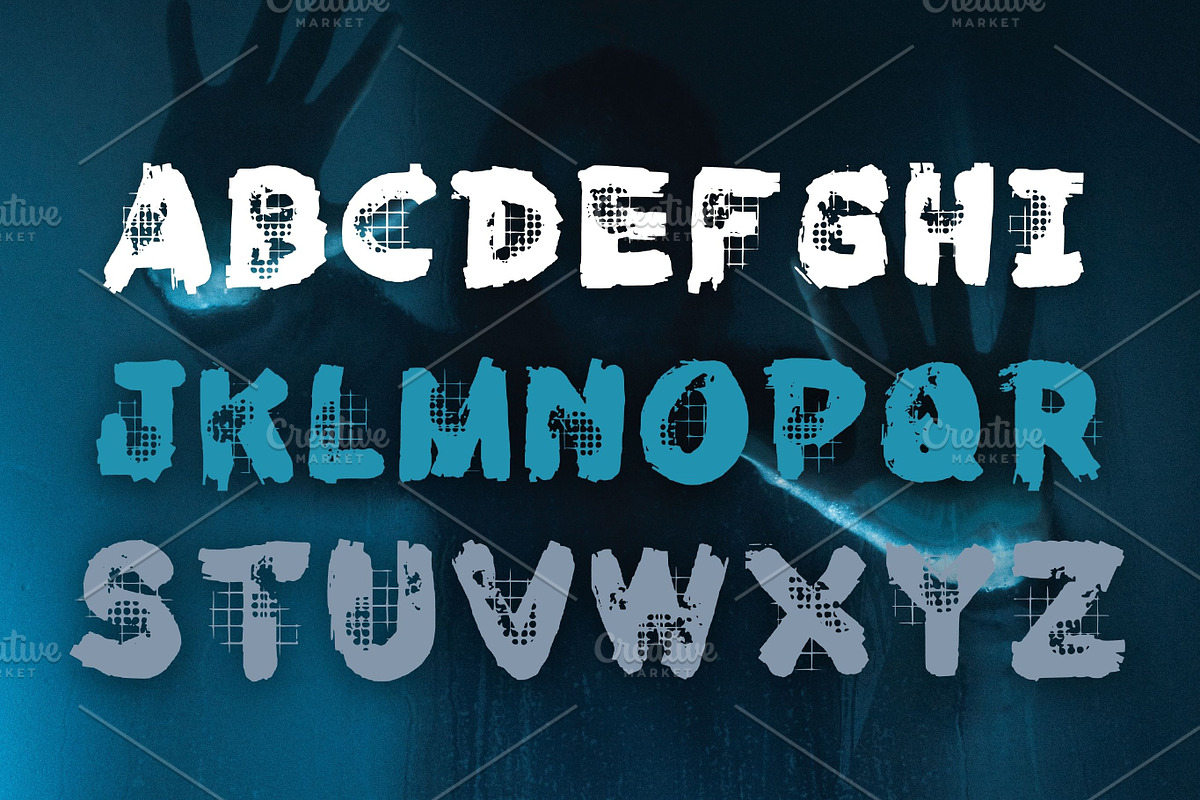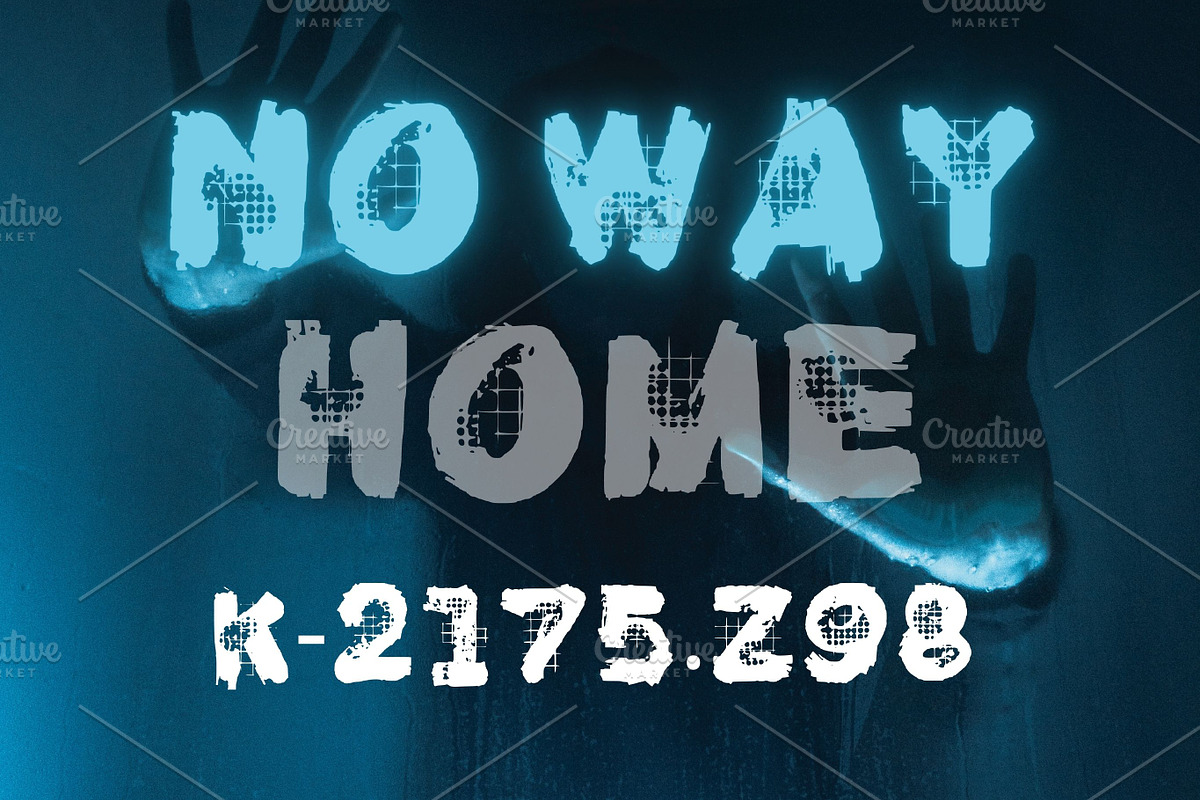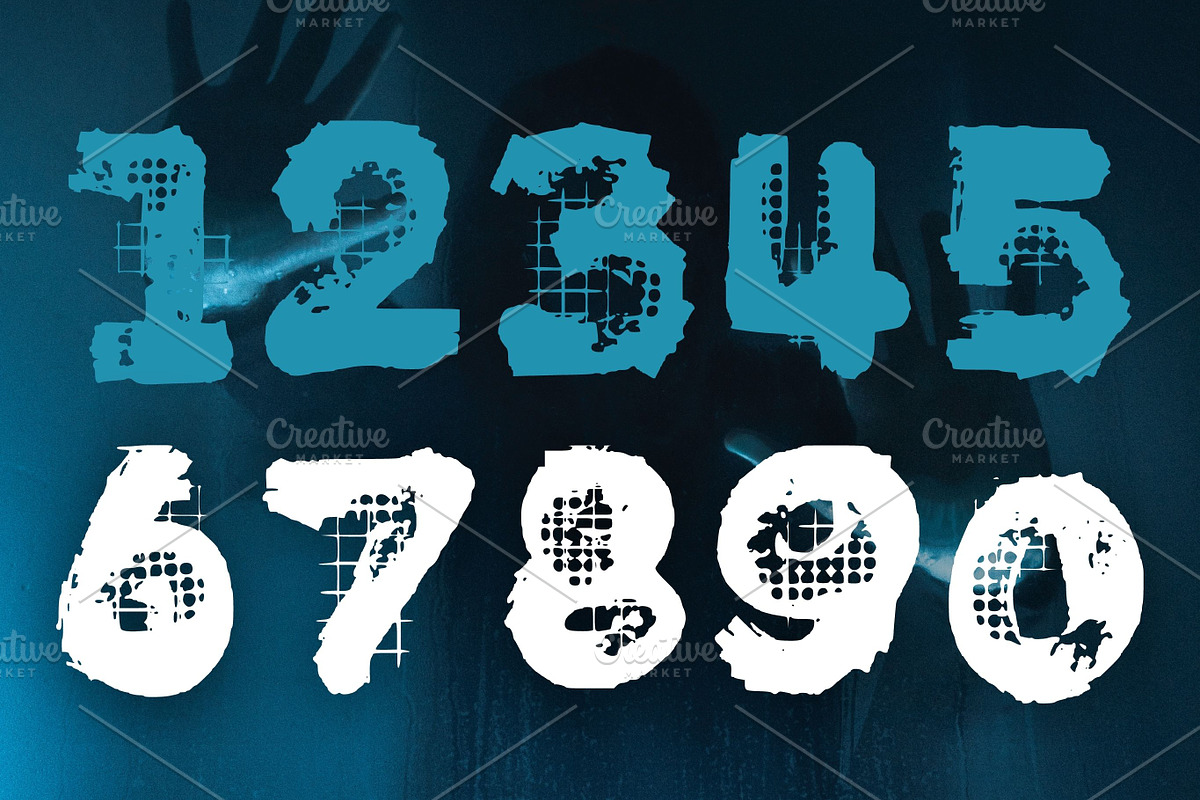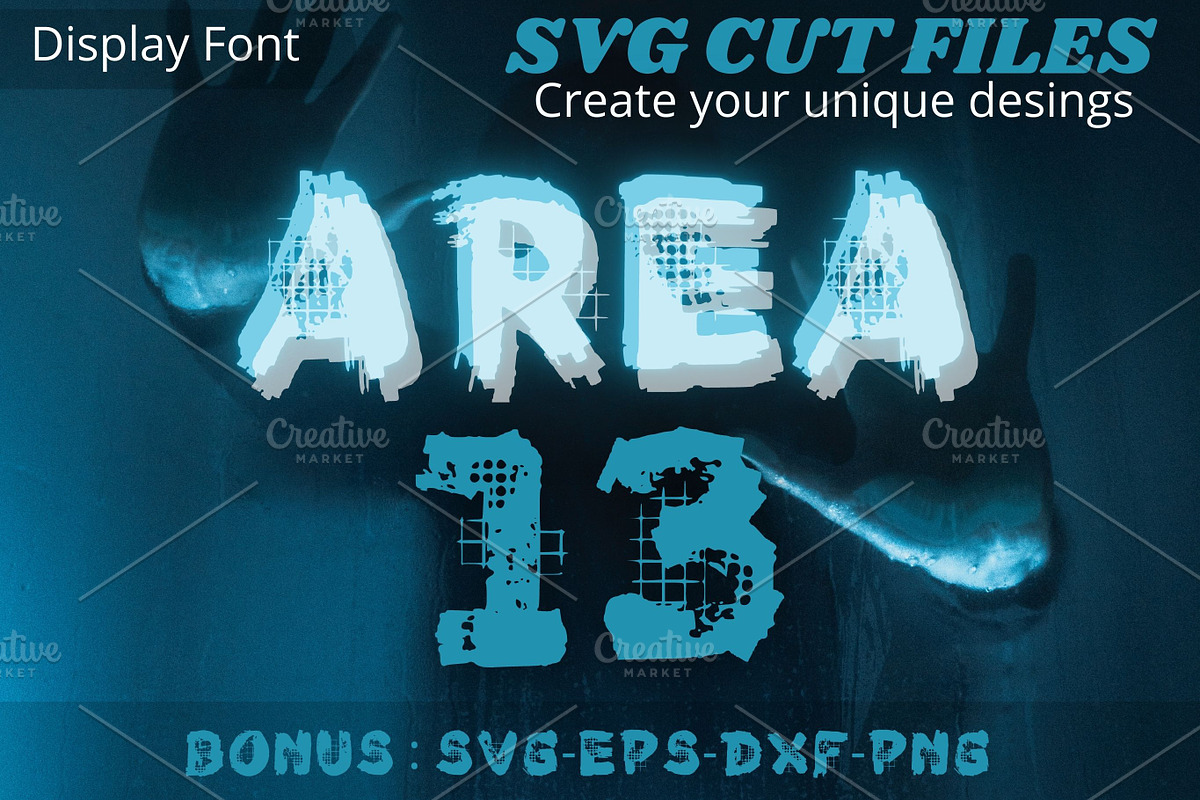
Area 13, Horror font, SVG cut files
Font is a cool, useful and unique decorative font. You can use it for various projects, such as blog posts, logos, branding, ads, invitations, greeting cards, planners, photo albums, decorations, and much more. Add it to any of your designs, and enjoy the results!